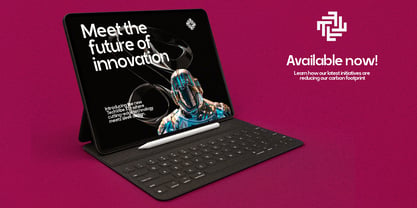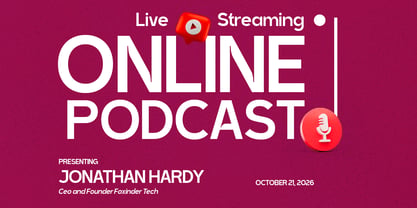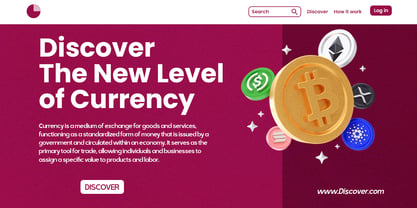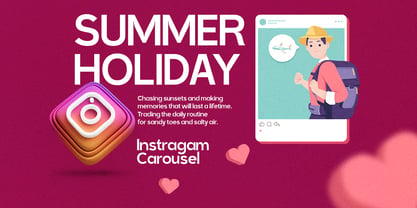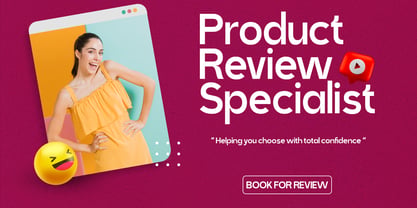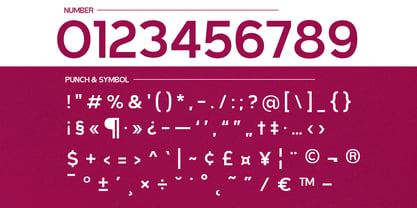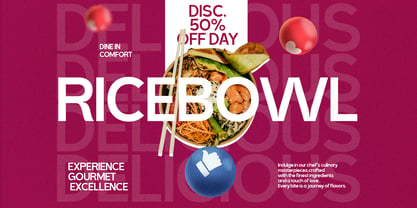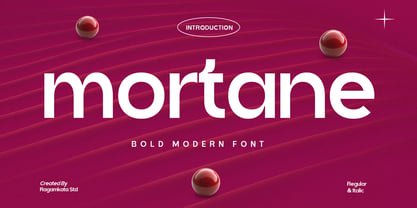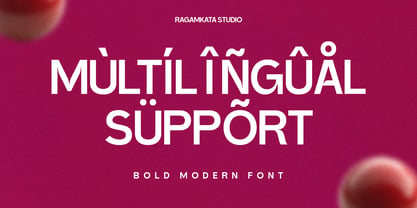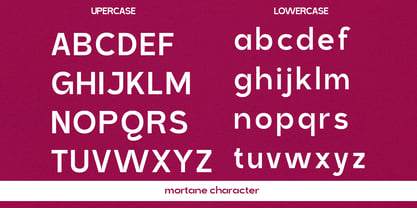
Mortane
by RagamKata
The Mortane Font Family was designed by Yogiswhara Dio Prakoso Riadi and published by RagamKata. Mortane contains 2 styles and family package options. More about this family
Mortane is a bold modern font crafted to deliver a strong visual impact with clean geometric precision. Featuring confident shapes, balanced proportions, and smooth curves, Mortane embodies contemporary design trends while ensuring excellent readability. Its striking presence makes it ideal for eye-catching headlines and impactful branding. Perfect for modern branding, startup identities, tech campaigns, website headers, posters, social media graphics, advertising materials, packaging design, editorial layouts, and digital marketing visuals, Mortane’s clean yet powerful character enables designers to create strong visual hierarchies and modern compositions effortlessly. With its bold weight and optional italic style, Mortane provides versatility for dynamic layouts and contemporary branding systems. Whether utilized for digital platforms or print projects, this font guarantees clarity, modern sophistication, and confident typographic performance. Thank You! Ragamkata